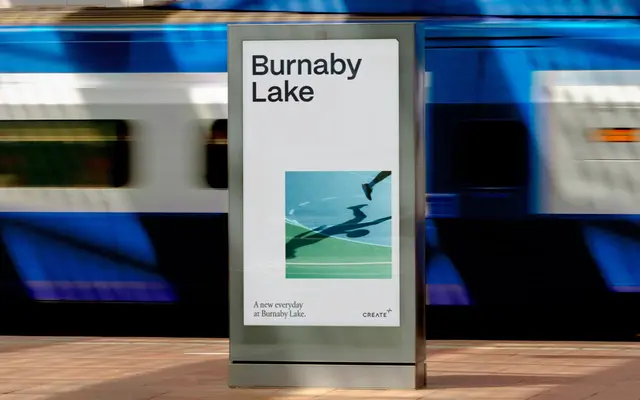
Mori
Pangram Foundry · Caio Kondo
A gothic grotesque by Caio Kondo, drawn from contemporary Japanese design with distinctive geometric details in selected characters across 22 styles and a variable axis.
Mori operates as a workhorse grotesque with quiet character: each of its 22 styles contains 804 glyphs including circled and squared numbers, Japanese punctuation, and multiple alternates for 'a', 'g', 'r', 't' and 'y'. The design is calm in most weights but distinctly detailed in characters such as the capital G, numerals 6 and 9, and the geometric single-storey 'r'. Available as a variable font with full italic coverage, it suits editorial, graphic design and brand identity work.
Categorised by the foundry as Gothic and Grotesk, Mori draws on contemporary Japanese design sensibilities while functioning as a workhorse grotesque, with subtle geometric details in characters like the 'r', 'G' and figures 6 and 9.